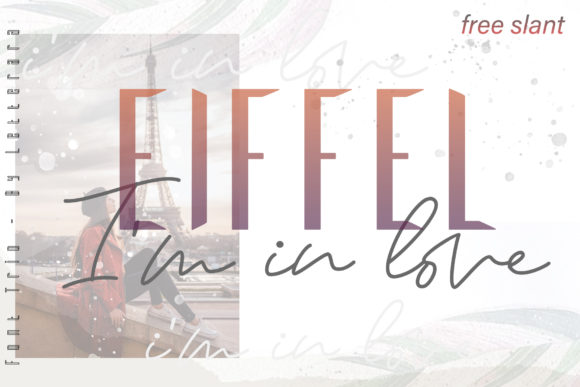
Introducing Eiffel in Love Duo Font, a high fashion-themed font trio that will bring sophistication and elegance to your designs. This beautiful font family, lovingly crafted by thomasaradea, features two captivating sans fonts and one authentic script font, each brimming with character and style.
Immerse yourself in the world of Eiffel in Love Duo Font and let your imagination soar. Create stunning logos that exude luxury and poise, design eye-catching posters that command attention, or craft elegant invitations that leave a lasting impression. The possibilities are endless with this versatile font trio.
Indulge in the delicate curves and effortless flow of the script font, perfectly capturing the essence of handwritten elegance. Combine it with the clean lines and modern aesthetics of the sans fonts to achieve a striking visual contrast that will leave your audience spellbound.
Unleash your creativity and explore the boundless applications of Eiffel in Love Duo Font. Use it to design social media graphics that pop, create eye-catching website headers that draw visitors in, or craft stunning product packaging that stands out on shelves. The options are limitless.